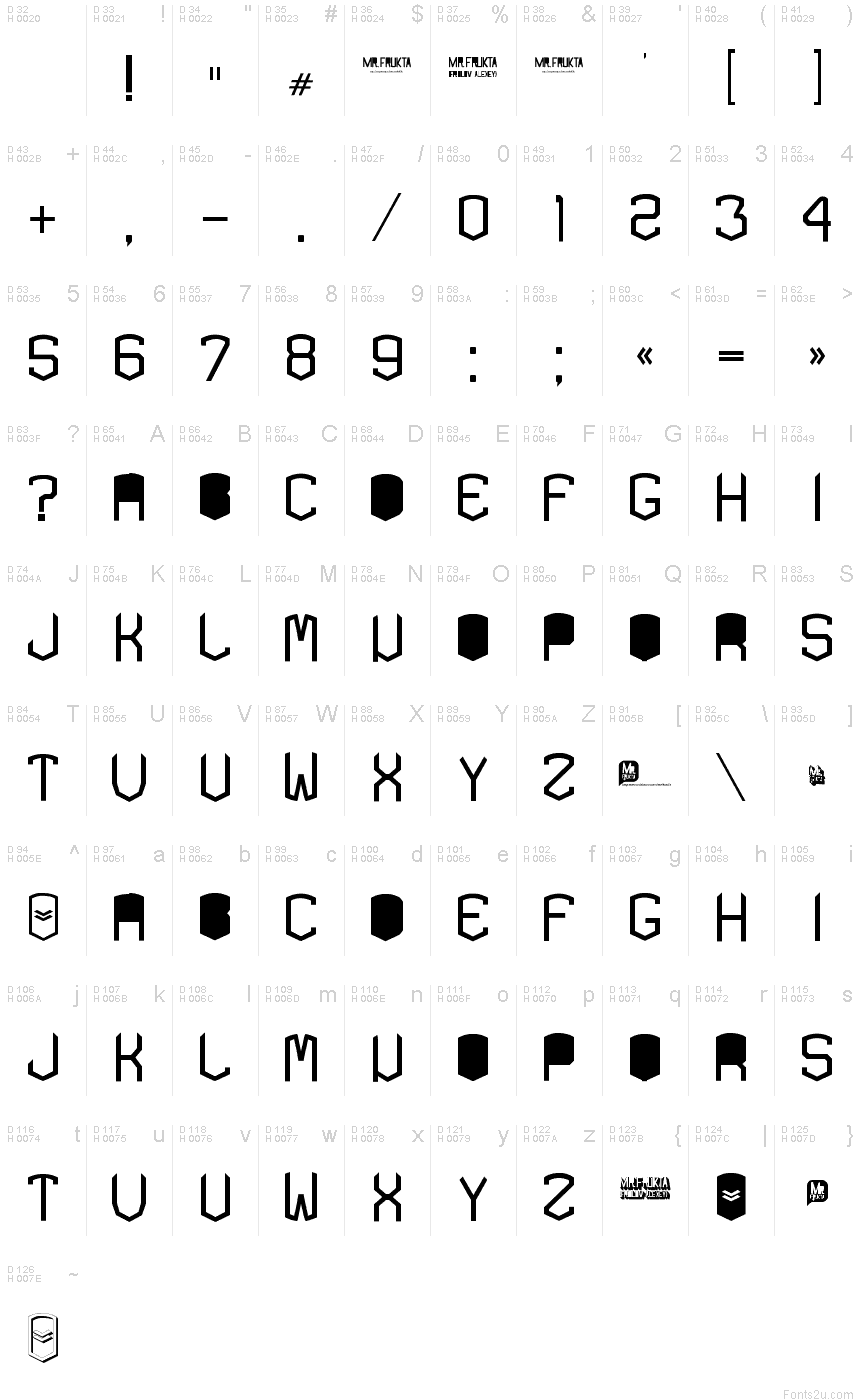
Kardon Black Type by Frolov Alexey of Mr. Frukta is a free futuristic display font whose broad, solid letterforms are built from straight strokes, squared proportions, and hard geometric cuts. Deep angular notches give the caps a machine-cut silhouette.
Its stark industrial geometry can move between electronic music posters and arcade gaming graphics, with the same severe shapes also fitting technology branding and science-fiction packaging. For digital title sequences, those blocky forms can become part of an animated angular emblem, a mechanical sign, or an on-screen control-panel interface rather than functioning as neutral lettering.